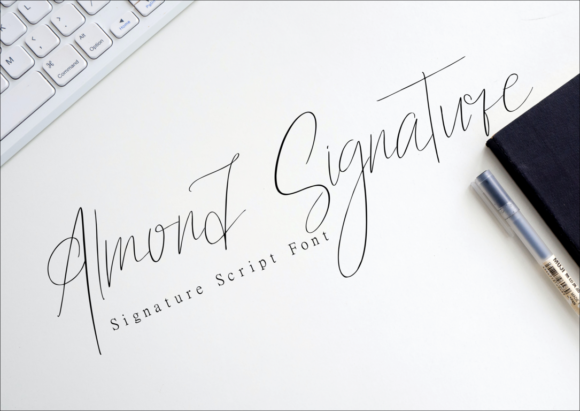
Unlock the Magic of Almond Signature Font
Have you ever been working on a project and suddenly, a spark of inspiration hits you? Maybe it’s the perfect color palette, a clever design element, or the font that makes it all come together. For me, that spark often comes in the form of discovering a new, game-changing font. And today, I’m excited to share with you one that’s sure to leave you swooning – the Almond Signature Font.
This elegant script font is a masterclass in understated sophistication. Its clean lines, delicate curves, and smooth vibe make it the perfect addition to any project seeking a touch of refined elegance. Whether you’re designing a wedding invitation, a logo, or a social media campaign, the Almond Signature Font is sure to elevate your design to new heights.
- Unique Characteristics: The Almond Signature Font features elegant, flowing lines, and a unique blend of modern and classic elements, making it perfect for creating a professional and sophisticated look.
Almond Signature Font Review
As a designer, I’ve had the chance to play around with the Almond Signature Font, and I’m here to give you my honest review.
- The font is elegant and sophisticated, perfect for creating a high-end feel in your designs.
- The ligatures and swashes add a touch of personality and make the font feel more human.
- The font is highly customizable, allowing you to adjust the spacing, kerning, and more to fit your needs.
- The font is quite dense, which can make it difficult to read in smaller sizes.
- The font family is relatively small, with only a few weights and styles available.
- The font doesn’t support all languages, which may be a limitation for global design projects.
The Almond Signature Font is a solid choice for designers looking to create a high-end feel in their designs. While it has some limitations, the font’s elegance and customizability make it a great option for the right project. Just be mindful of the font’s density and language support when deciding whether to use it.
Use the Almond Signature Font for creating elegant and sophisticated designs, such as:
Business cards, letterheads, and other stationery items.
Wedding invitations, menus, and other event materials.
Use it in combination with other elegant fonts to create a cohesive look.